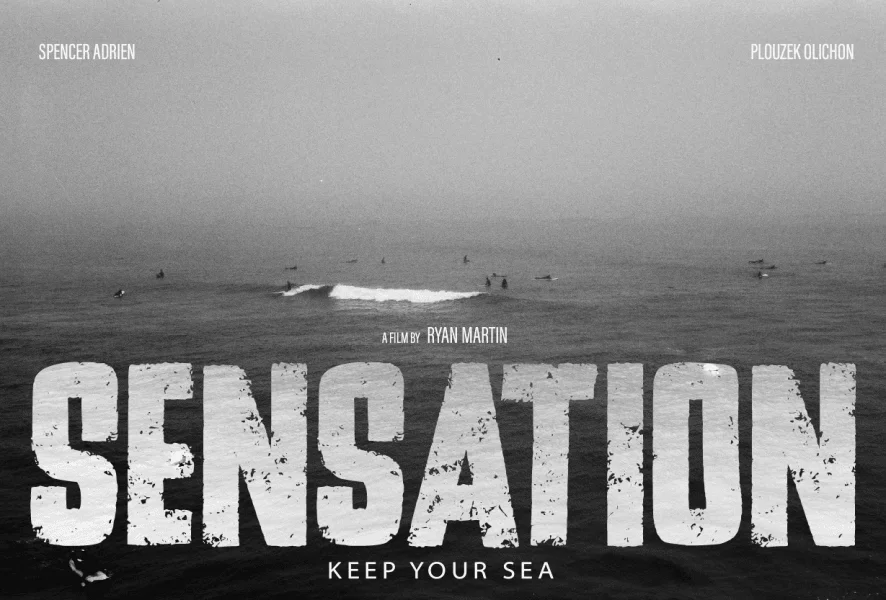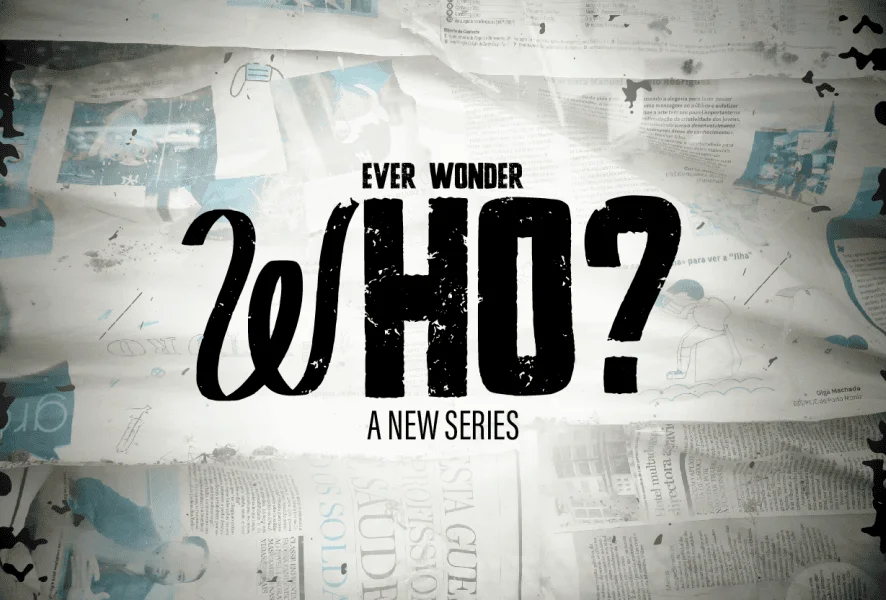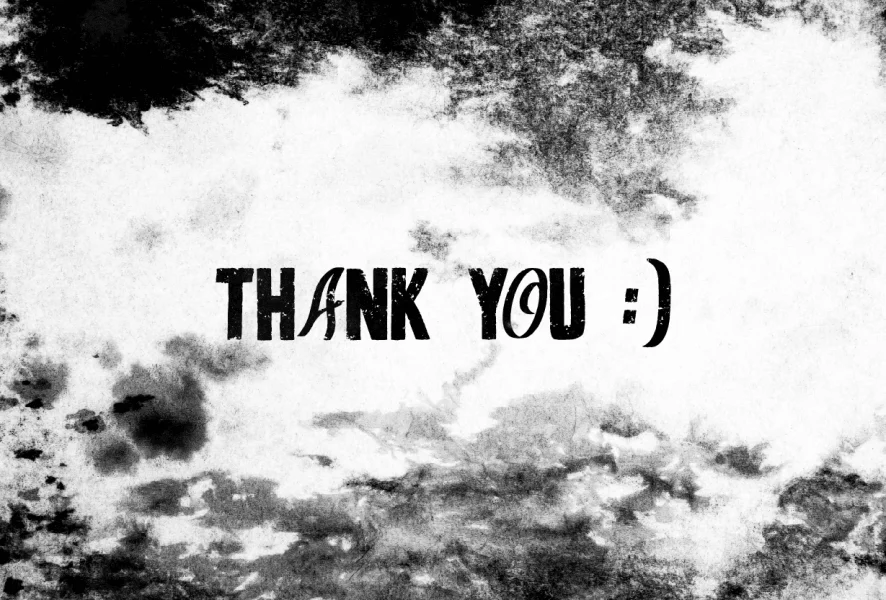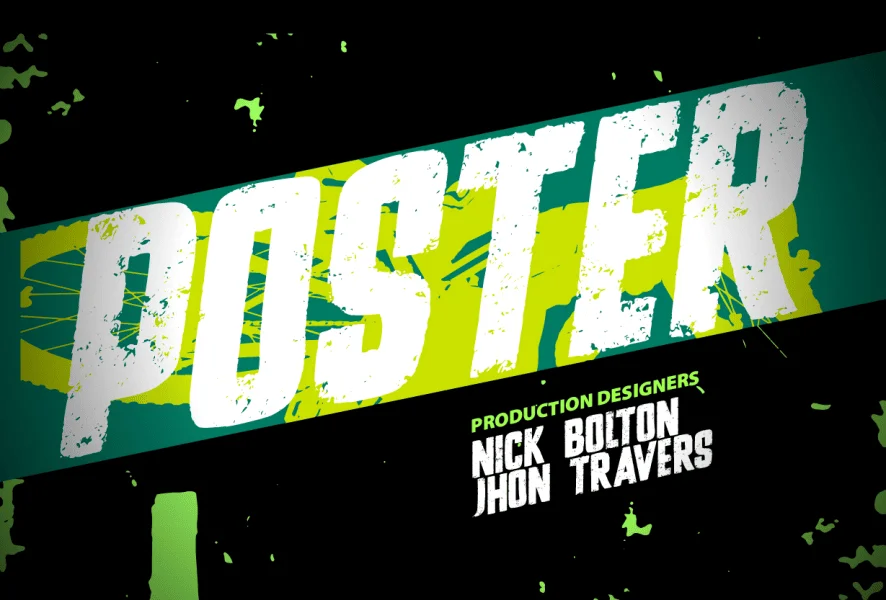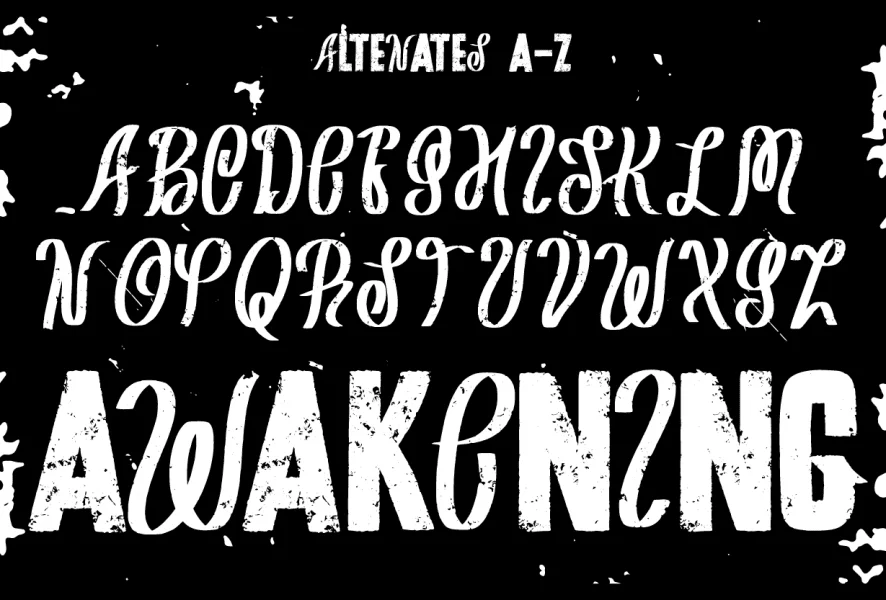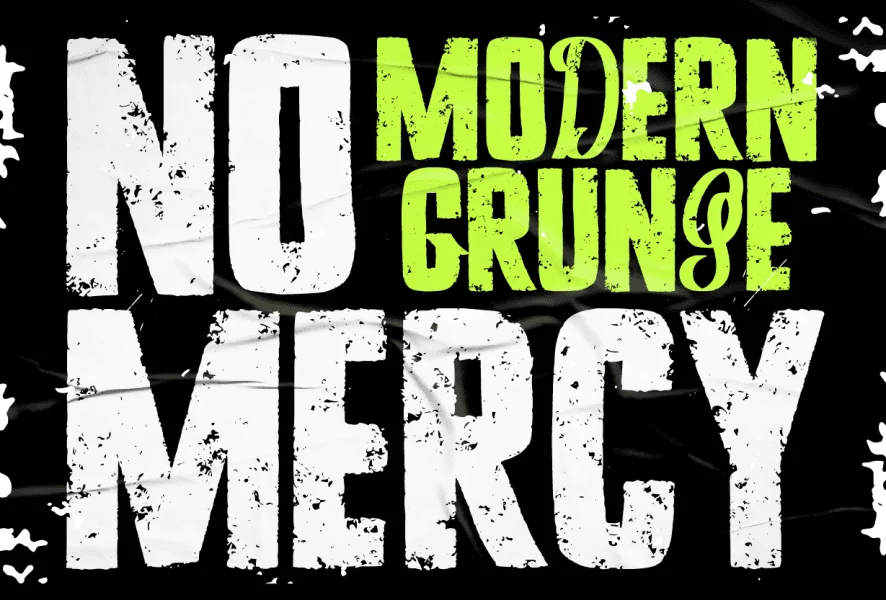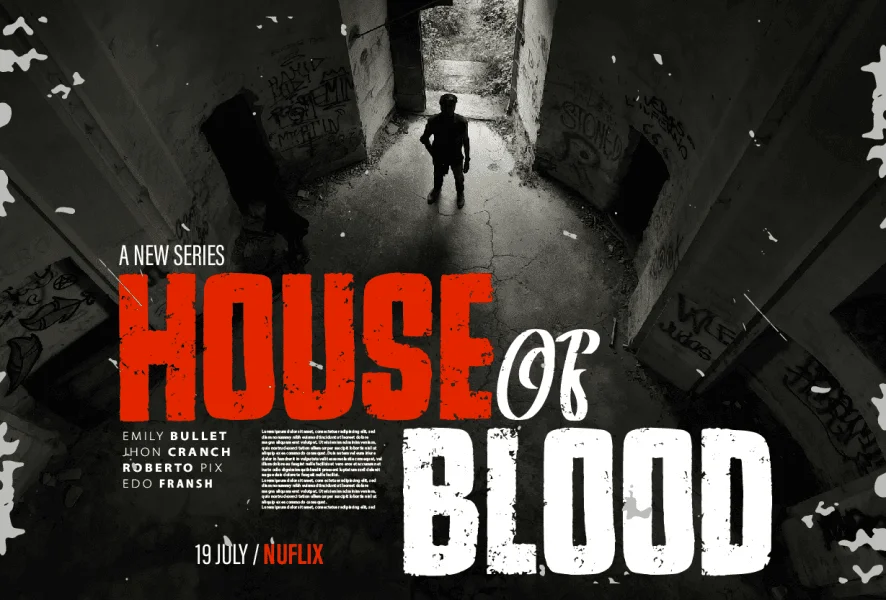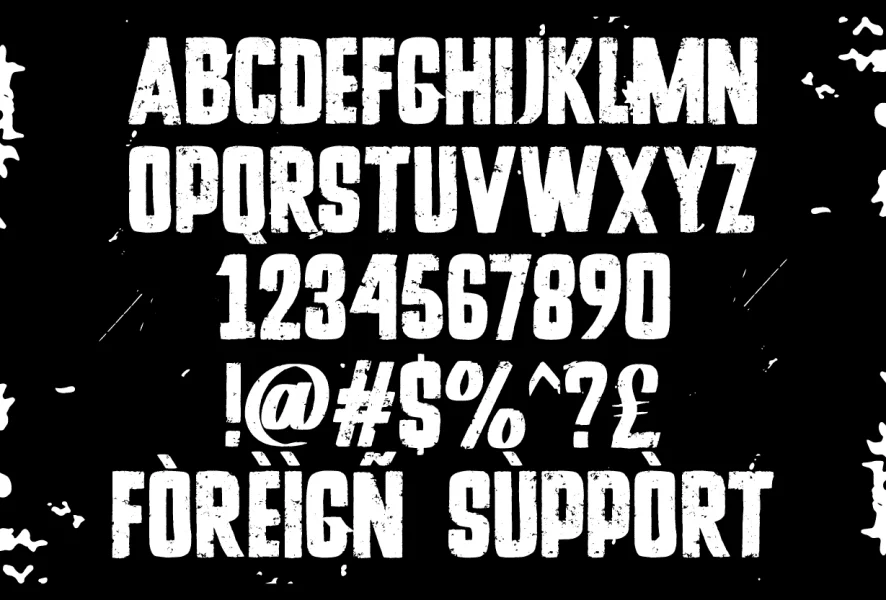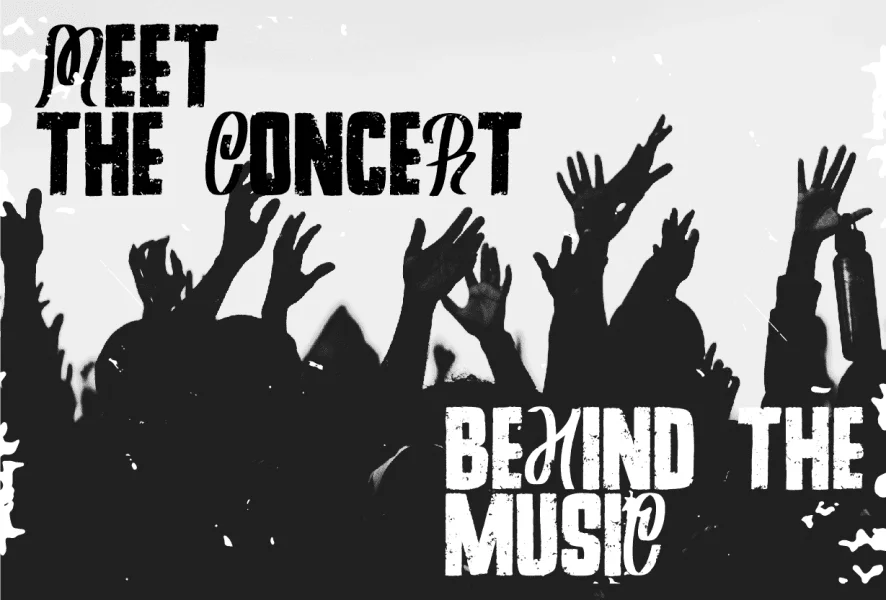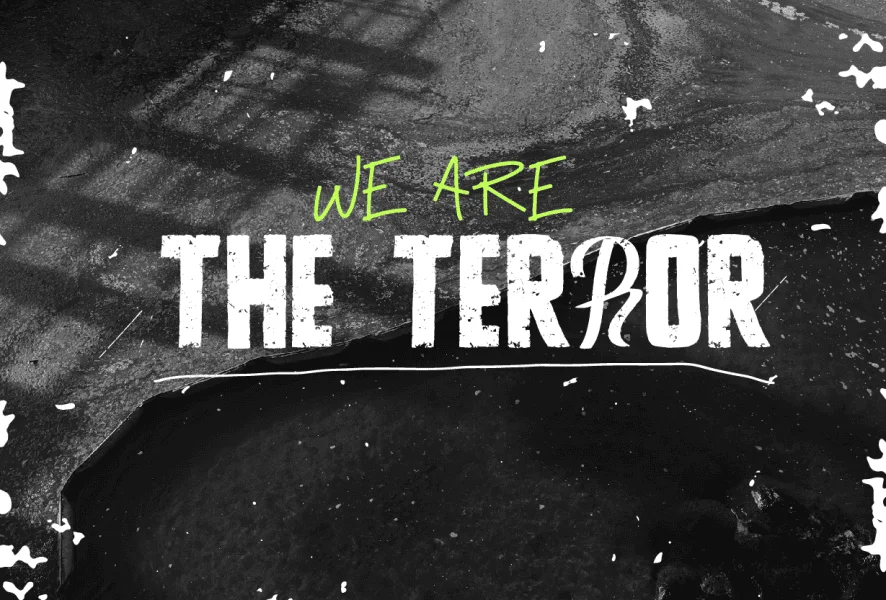
STONES CRUSH is a hand-drawn typeface with a true grunge effect, designed to bring an authentic and raw look to your creative projects. Every letter is crafted by hand for natural imperfections, giving your design a bold and powerful vibe.
With built-in alternates, you can create unique letter variations for a more dynamic and realistic handmade style. The textured details and organic strokes make this font perfect for projects that need a distressed and edgy appearance.
Features:
- Uppercase Letters
- Alternates for Combination
- Numbers & Punctuation
- Multilingual Support
If you're looking for a font that combines handmade authenticity, grunge texture, and versatile alternates, STONES CRUSH is the perfect choice. Bring your design to life with raw, imperfect beauty!